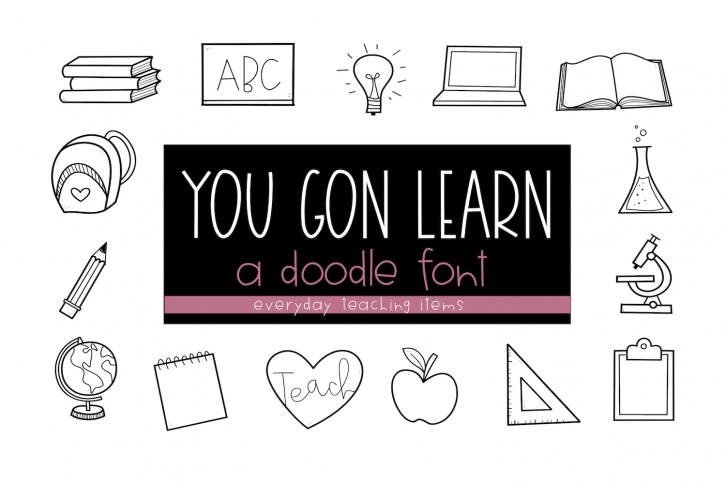
You Gon Learn is a gorgeous font that was realeased on August 1, 2018. The font can be used in many style contexts and design environments. Perfect for invitations, magazines, websites, logos, and more! It was designed by KA Designs and the file size is 9.64 MB. Thanks for checking out this font!